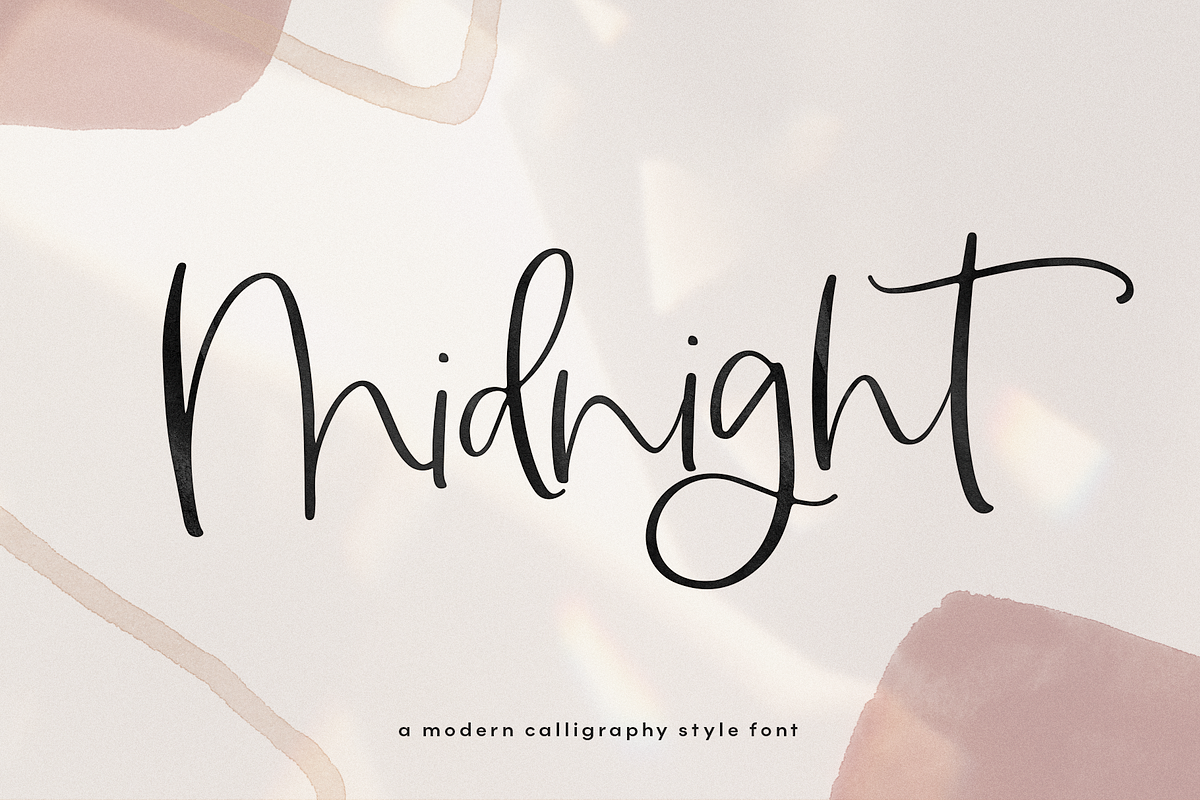
Midnight | Handwritten Script Font Free Download is a beautiful, elegant script typeface with flowing, natural strokes that evoke a sense of warmth and authenticity. Perfect for wedding invitations, personal branding, logos, social media graphics, and other creative projects, this font brings a handwritten, personal touch to your typography.
With its smooth curves and stylish design, Midnight combines sophistication with a relaxed feel, making it ideal for designs that need a balance of elegance and informality. Whether you're working on a luxury brand, crafting an invitation, or creating a romantic logo, this font adds a charming, unique flair.
The font includes uppercase and lowercase letters, numerals, punctuation, and multilingual support, ensuring versatility across various design needs. It’s compatible with most design software and works beautifully in both print and digital formats.